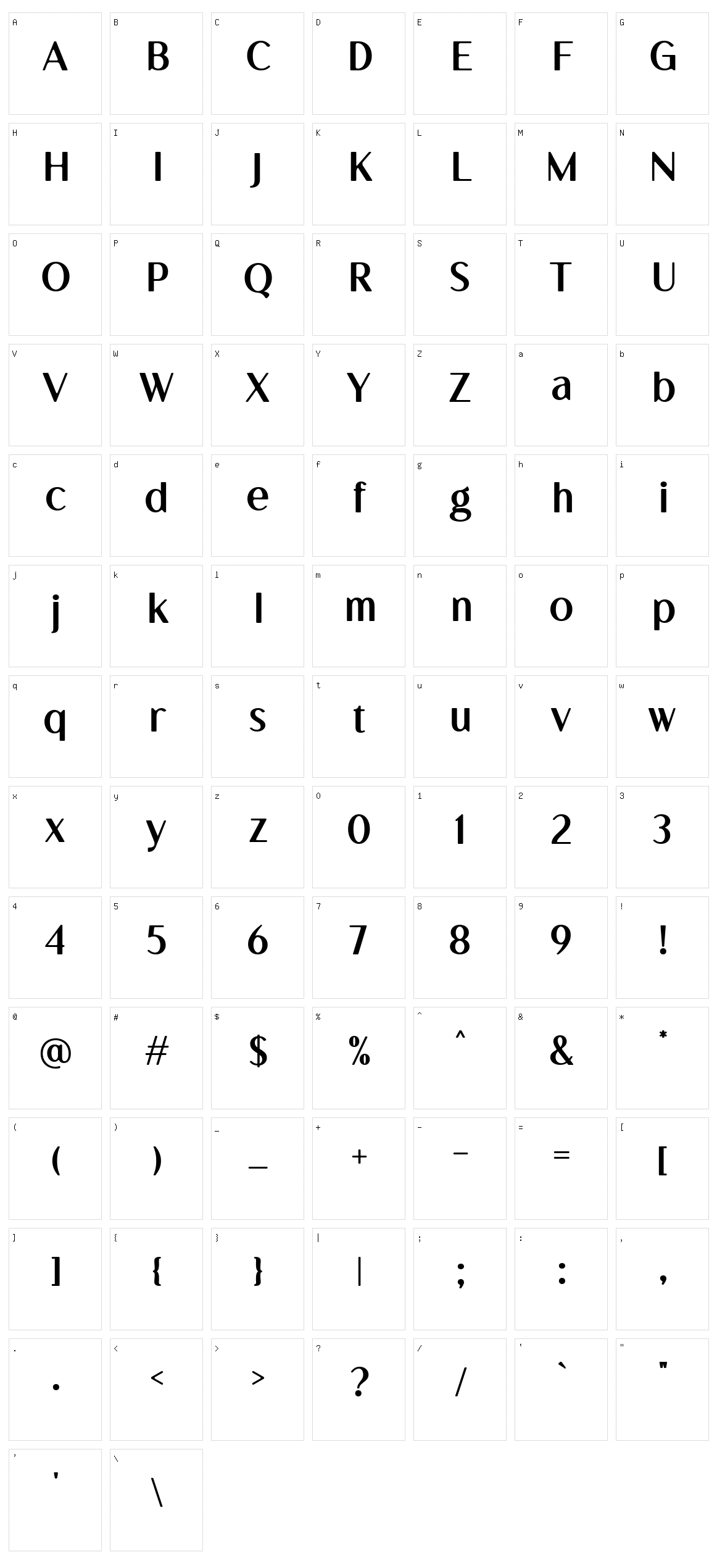
The free font Motena Golden is carefully designed by Suby Studio, showcasing a thoughtful balance of creativity and usability and falls under the Sans serif font style. When you download the ZIP file, it contains only 31.41 KB of font files, making it lightweight and quick to download. Please review the license details below to understand permitted usage and distribution rights. If license information is not available, we recommend using this font for personal projects only or contacting the author directly for commercial usage permissions.